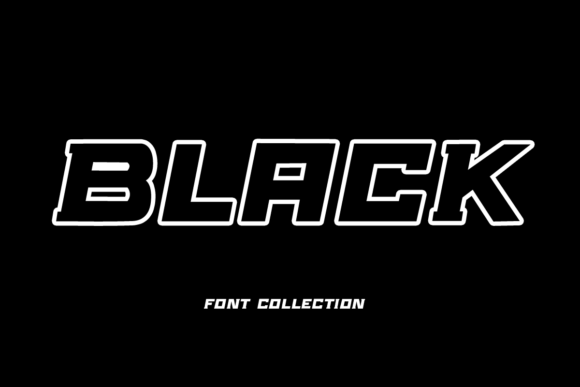
The Power of Black Font: Elevate Your Designs with Bold and Chubby Characters
I’ll never forget the time I was working on a branding project for a new coffee shop. My client wanted a font that would stand out on their packaging and social media, but I was struggling to find something that felt unique and eye-catching. That’s when I stumbled upon Black Font, a game-changing display font that instantly elevated my design. In this article, I’ll share my experience with Black Font, its features, and how to make the most of it in your designs.
An Honest Review of Black Font
So, what makes Black Font so special? Here are some things I love:
• Bold and chubby characters that demand attention
• Perfect for display purposes, such as product packaging, branding projects, magazine covers, and social media
• 🎉 Unique and playful feel that’s sure to make your projects stand out
Of course, no font is perfect. Here are a few quirks to keep in mind:
• 🤔 May not be suitable for body text due to its bold and chunky nature
• ⚠️ Some characters may not work well at small sizes, so be sure to test it out before committing
A Practical Guide to Using Black Font
The Story Behind Black Font
Black Font was designed with one goal in mind: to create a bold, eye-catching font that would make designs stand out. Inspired by the playful, chunky textures of childhood fonts, Black Font’s designer aimed to create a font that would bring fun and personality to any project. Whether you’re a designer, crafter, or creative hobbyist, Black Font is sure to become a favorite in your font library.
What is Black Font best used for? Black Font is perfect for display purposes, such as product packaging, branding projects, magazine covers, and social media.
Can I use Black Font for body text? While Black Font is technically possible to use for body text, it’s not recommended due to its bold and chunky nature. It’s best suited for headings and titles.
Is Black Font available in different weights or styles? Currently, Black Font is available in a single weight, but its bold and chubby characters make it perfect for adding emphasis to your designs.